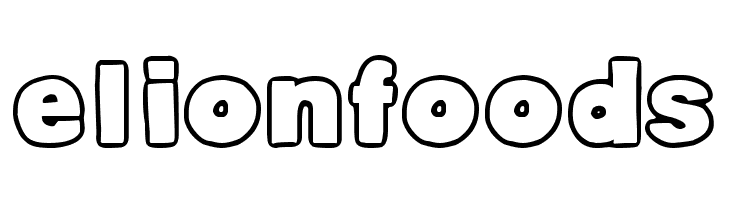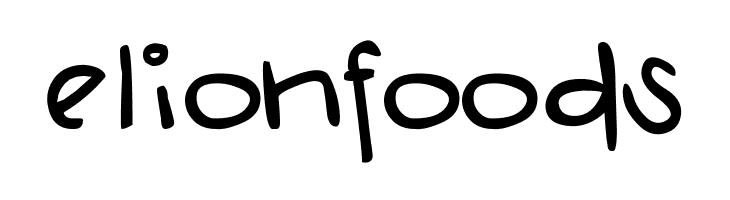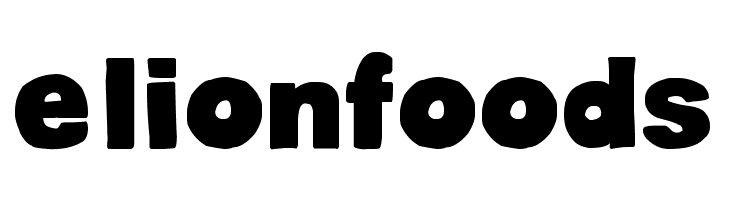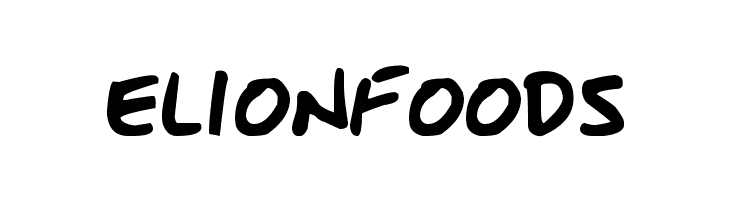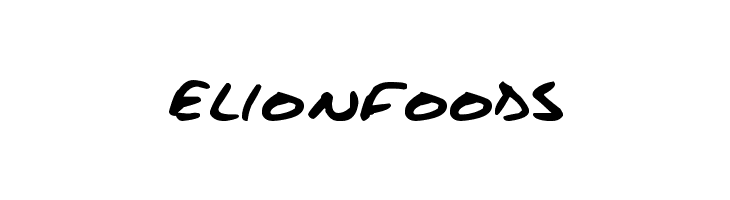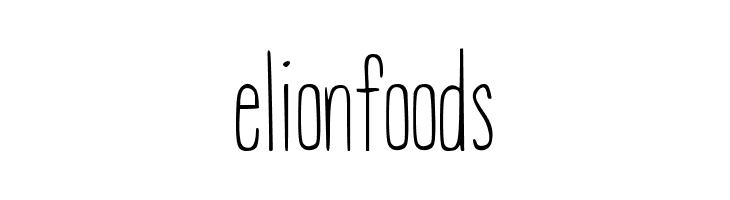
• DJB About a Boy
A playful, casual handwritten font with fluid strokes and a dynamic style.
• DJB Angel Baby
A playful, whimsical handwritten font with loose, flowing strokes.
• DJB Another Mandy
A playful, bold handwritten font with a casual and dynamic style.
• DJB Bean Pole
An ultra-thin, elongated font with a playful and modern aesthetic.
• DJB Belly Button-Outtie
A playful, bold font with rounded, outlined characters perfect for whimsical designs.
• DJB BellyButton-Innie Bold
A bold, playful font with rounded edges and a chunky appearance.
• DJB BLUEPRINT
A bold, playful handwritten font with rounded, informal strokes.
• DJB Boyfriend Jeans
• DJB CASSANDRA
A playful, informal handwritten font with a whimsical and friendly style.
• DJB CLyleRun
A playful, casual handwritten font with tall, narrow letters and whimsical strokes.